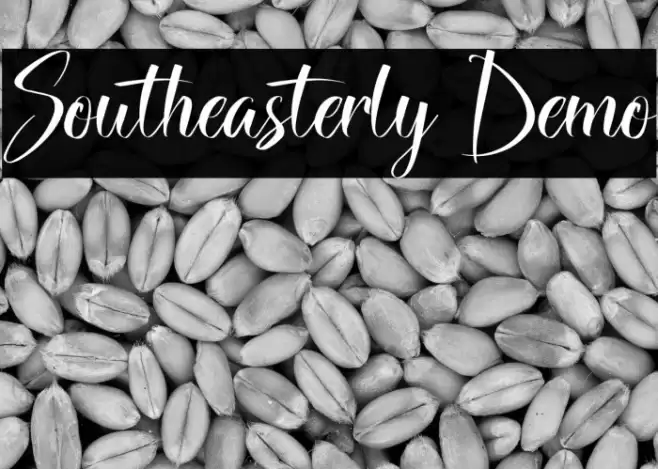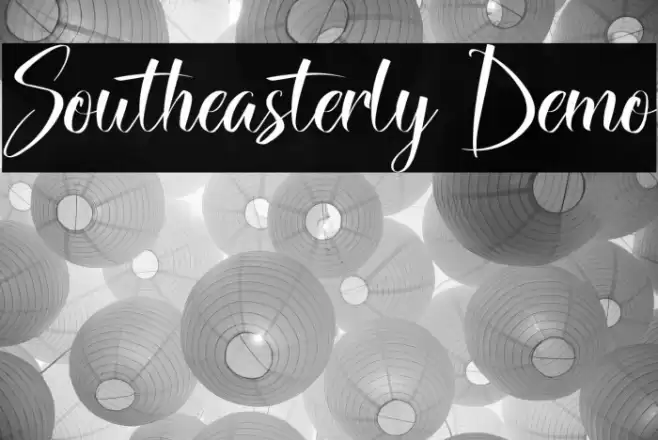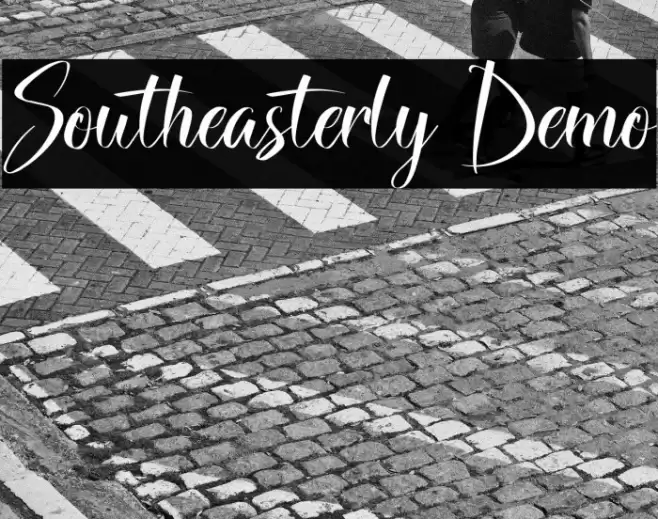
Southeasterly Demo Font
Southeasterly Demo Description
This font features a dynamic and flowing script style, characterized by its elegant and fluid strokes. The uppercase letters exhibit a graceful, sweeping motion, while the lowercase letters maintain a consistent rhythm, enhancing readability. The font's design is reminiscent of traditional calligraphy, with a modern twist that adds a touch of sophistication. The characters are slightly slanted, giving a sense of movement and energy. This font is ideal for projects that require a personal and artistic touch, such as invitations, branding, and packaging. Its unique style makes it stand out, yet it remains versatile enough for various applications.
A dynamic and elegant script font with fluid, calligraphic strokes from Regular fonts.
- Proposed Projects: Ideal for wedding invitations, branding, packaging, and artistic projects.
- Use Case: Logos, Invitations, Branding